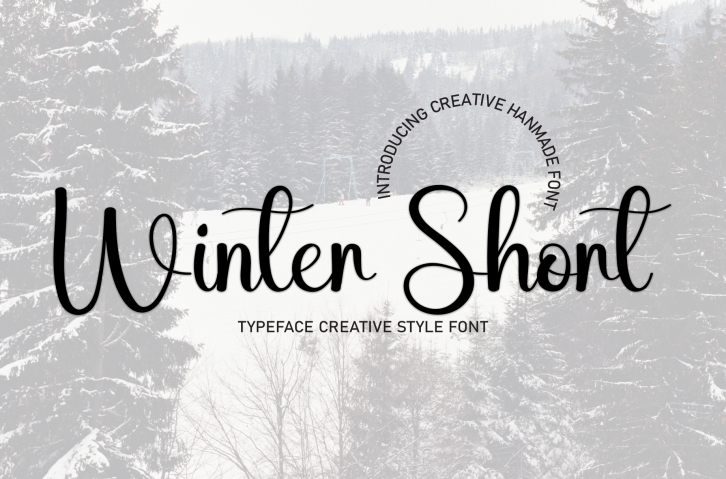
this is a sweet and friendly handwritten display font. Cute and fun, this font is ideal for writing wedding invitations, cards, or any other design that might need a fun touch!